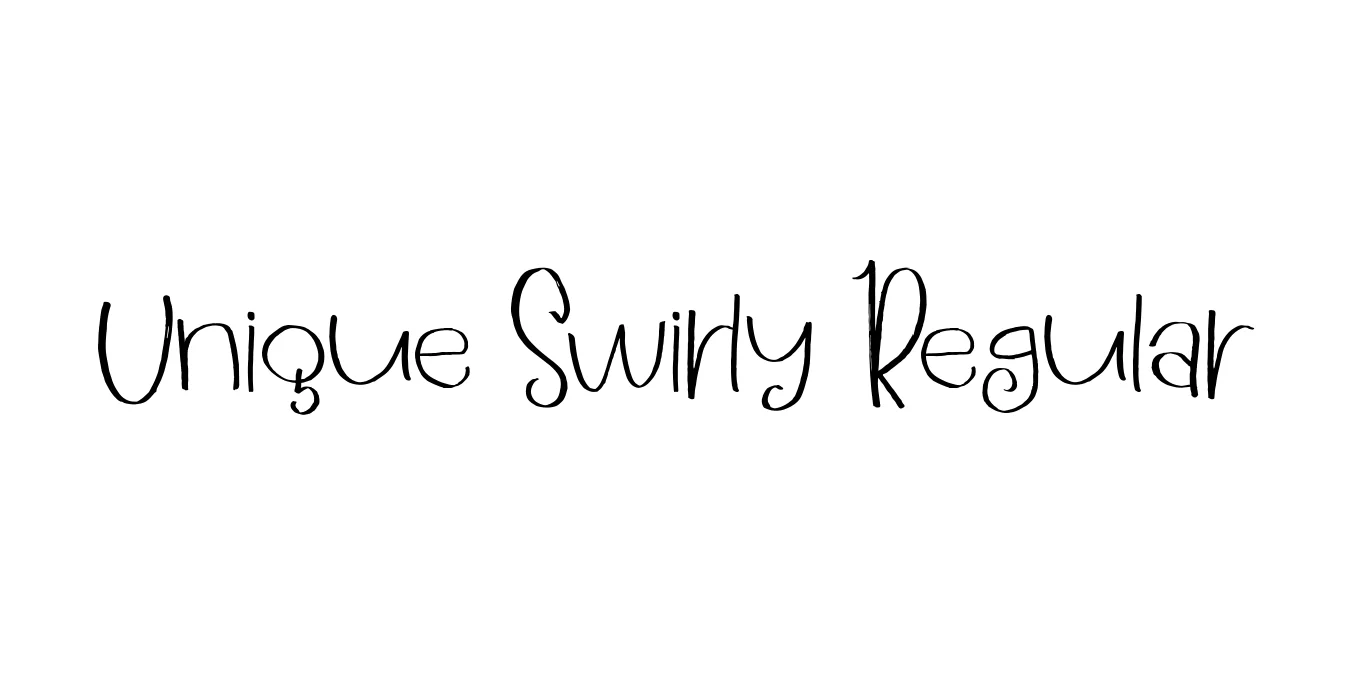
Unique Swirly Regular
Designed by Graphix Line Studio
| Category | Decorative / Script |
Unique Swirly Regular is a whimsical decorative typeface meticulously crafted to blend the charm of traditional calligraphy with a vibrant, modern aesthetic. Characterized by its exaggerated loops and artistic flourishes, this font serves as an ideal centerpiece for projects requiring a touch of elegance and creativity.
Developed with a focus on visual harmony, the font maintains an excellent balance between its ornate swirls and core character forms. It is widely utilized by designers for creating high-end boutique identities, feminine branding, and custom greeting cards that demand a handcrafted feel.
Unique Swirly Regular Best Uses
Perfect for creating elegant invitations and formal RSVP cards.
Ideal for eye-catching quotes, overlays, and Instagram story highlights.
Provides a unique and memorable identity for beauty and lifestyle brands.
Adds a whimsical and personal touch to holiday and birthday messages.